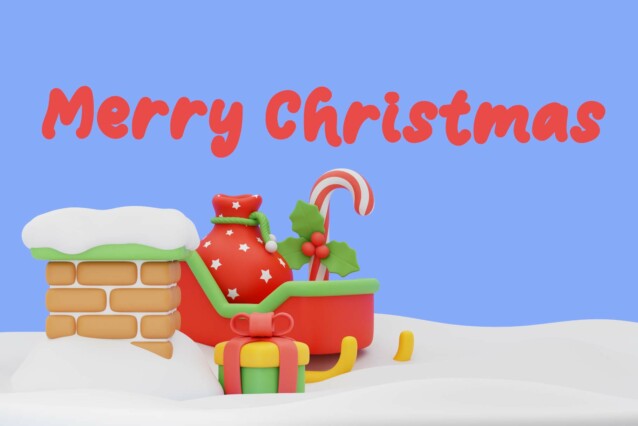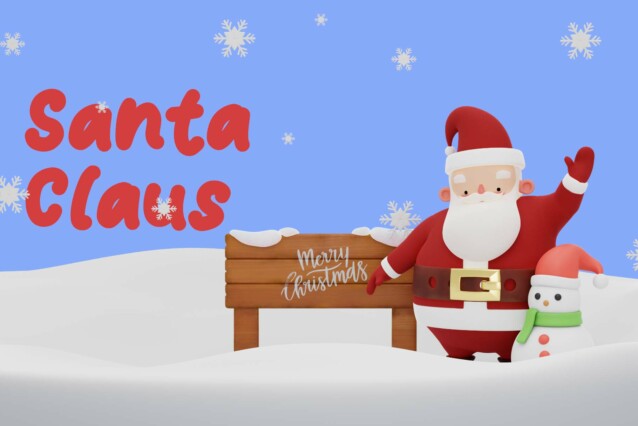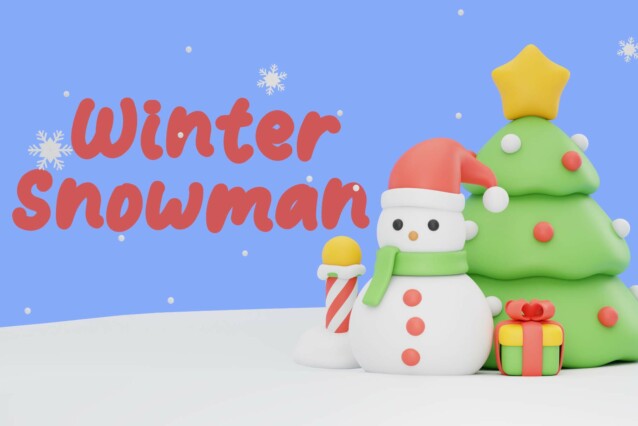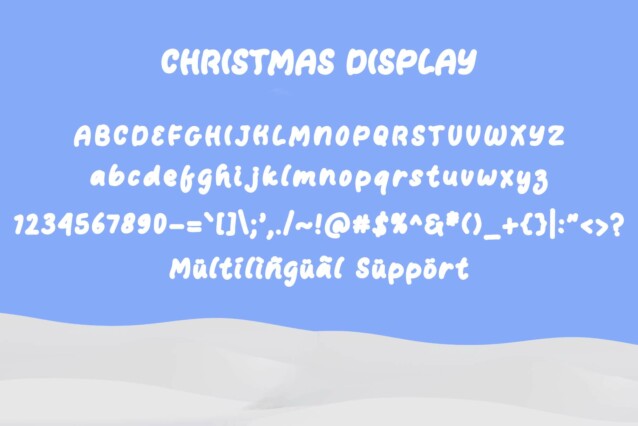
Christmas Display Typeface
Christmas Display Typeface is a cute and unique display font. This font is equipped with uppercase, lowercase, numerals, punctuation, and multilingual support. Very suitable for Christmas, winter, birthdays, comics, Christmas greetings, invitations, book covers, Christmas parties, Valentine’s Day, Easter, and so much more.